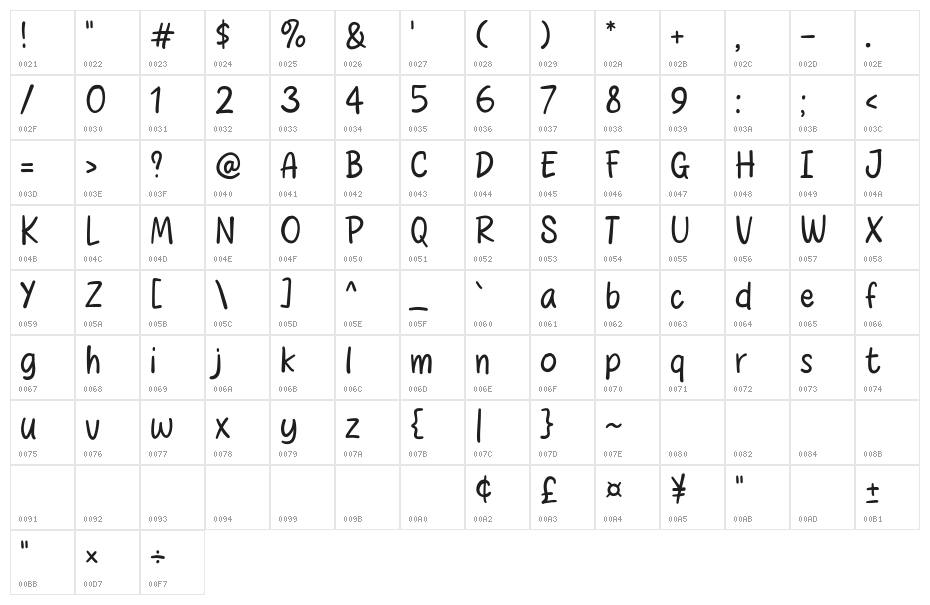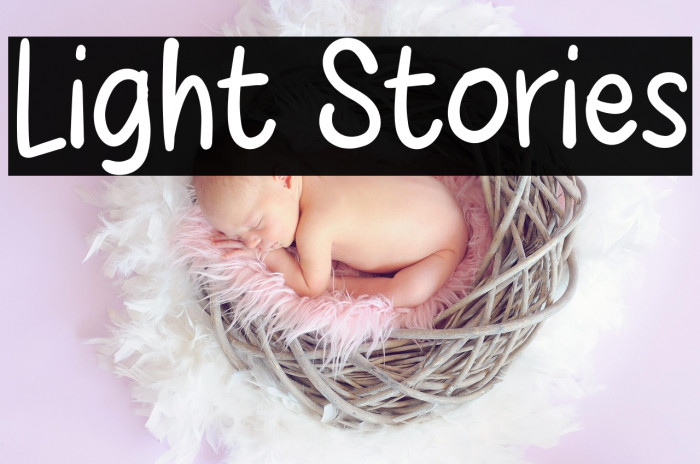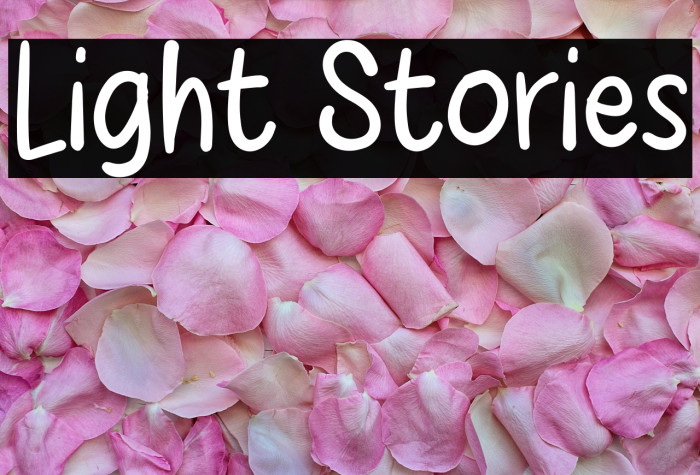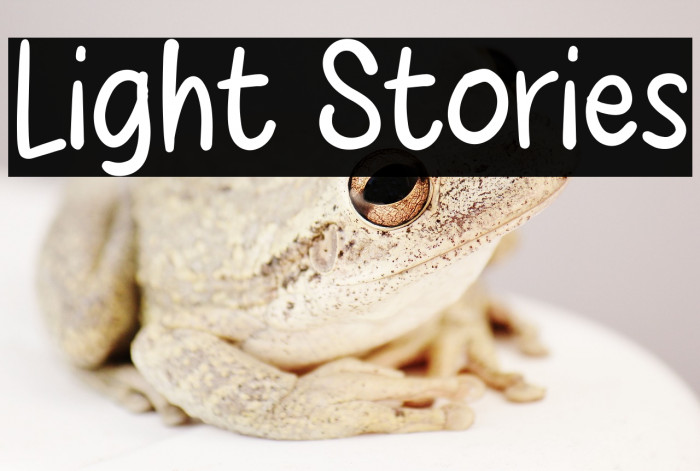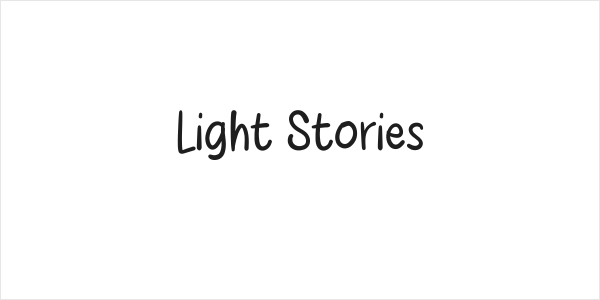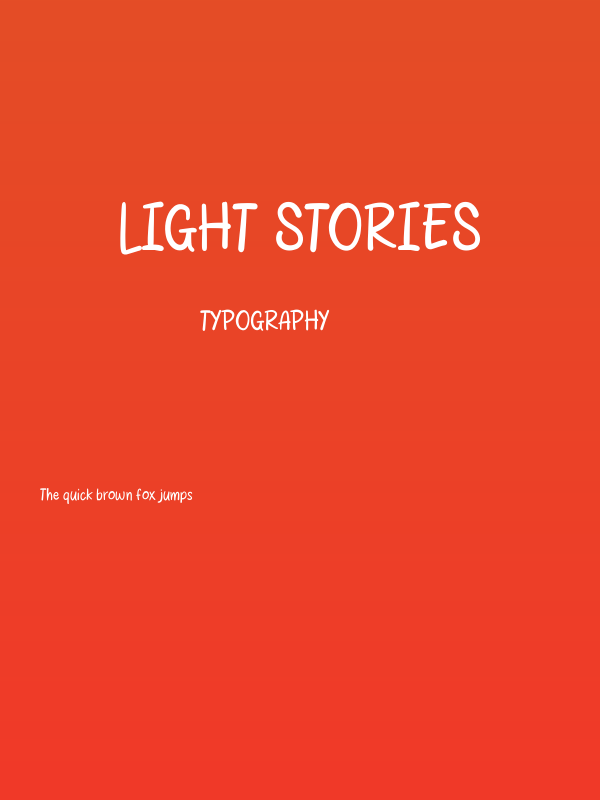
Light Stories Font
Light Stories Description
This font features a playful and casual handwritten style, characterized by its smooth curves and slightly irregular strokes. The letters are well-rounded with a consistent flow, giving it a friendly and approachable appearance. The uppercase and lowercase letters maintain a uniform height, while the numerals and special characters blend seamlessly with the overall design. The font's informal nature makes it suitable for creative and lighthearted projects, adding a touch of personality and warmth to any text.
| Proposed Projects | Ideal for greeting cards, children's books, personal blogs, and creative branding projects. |